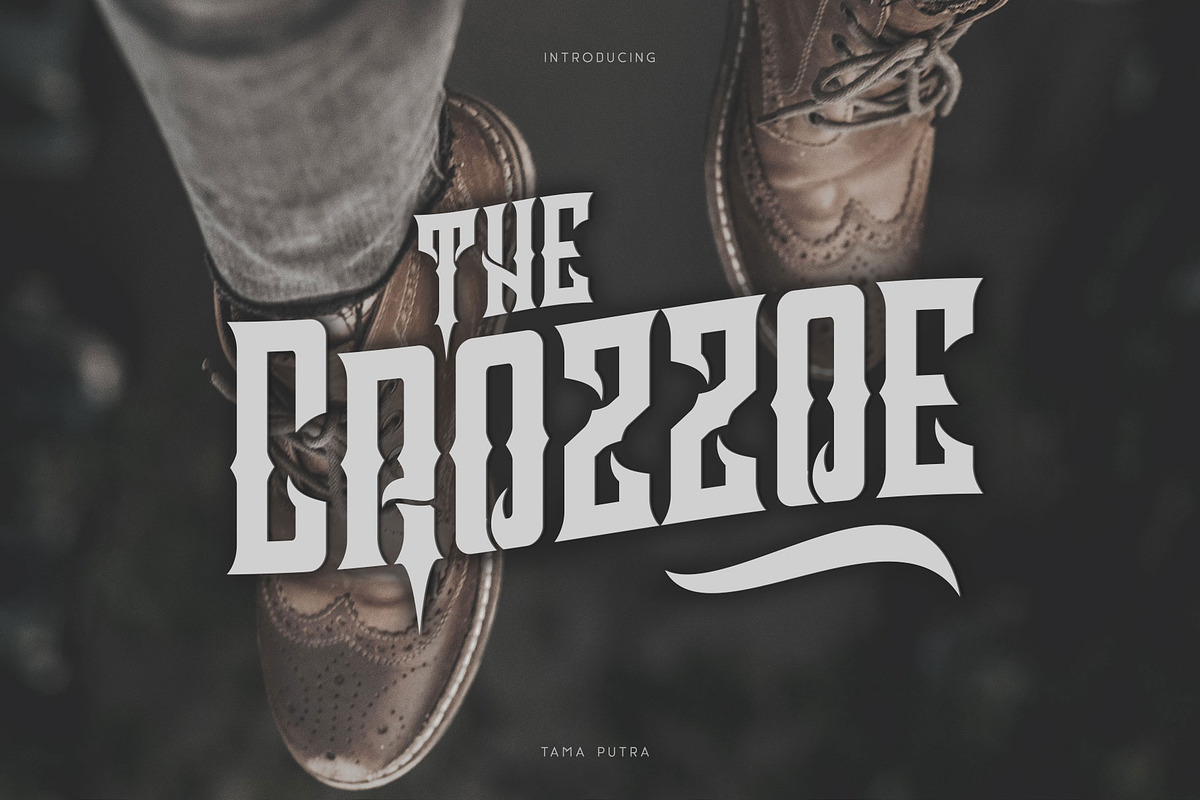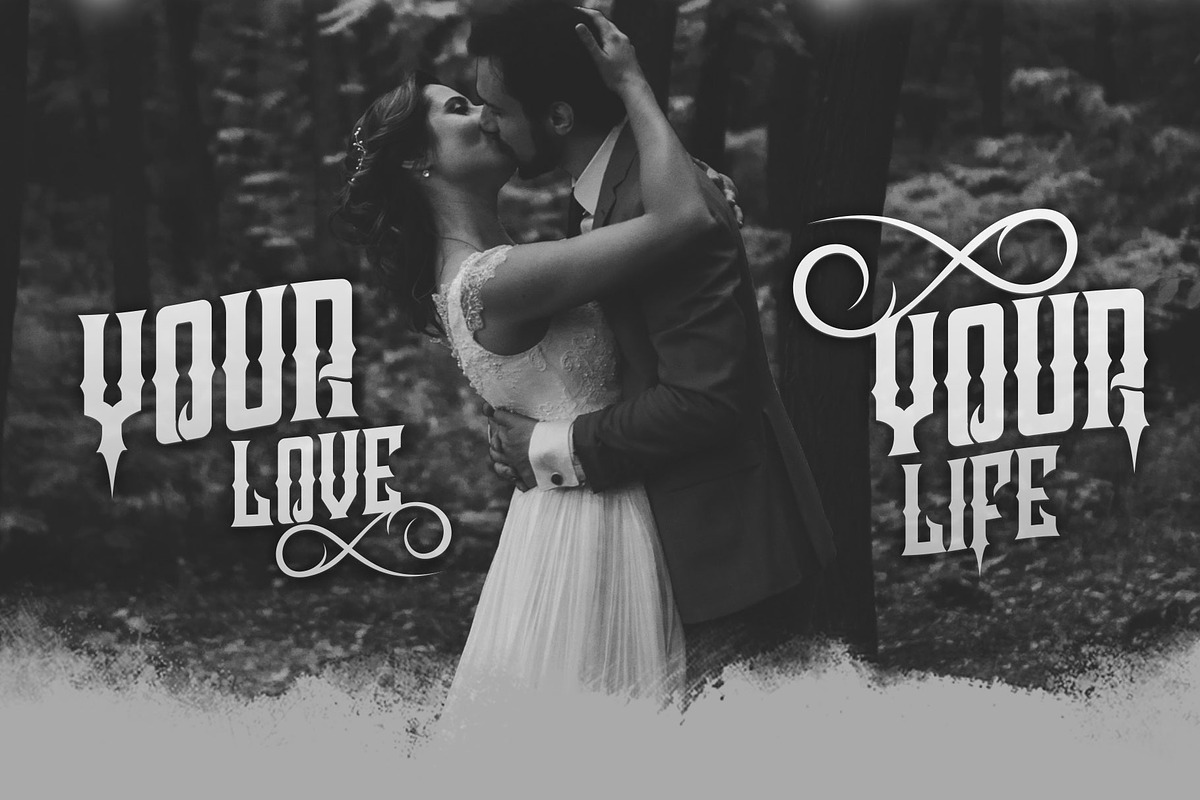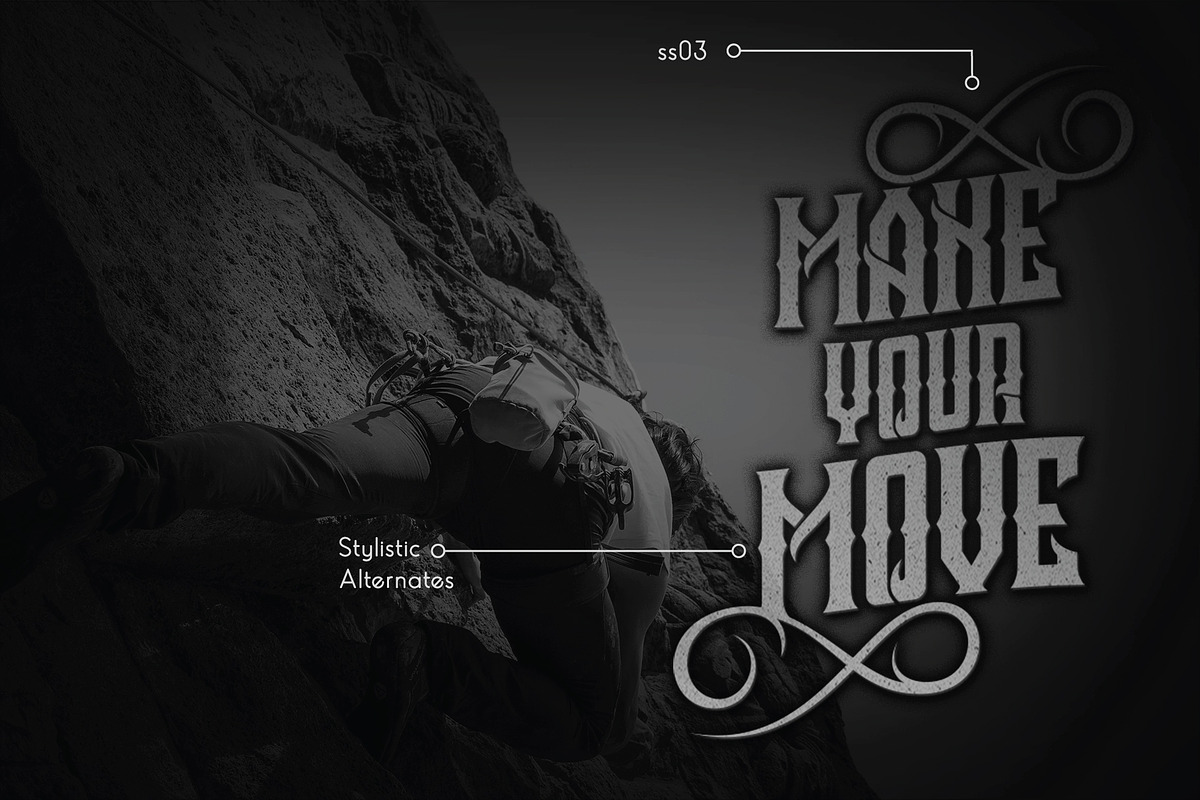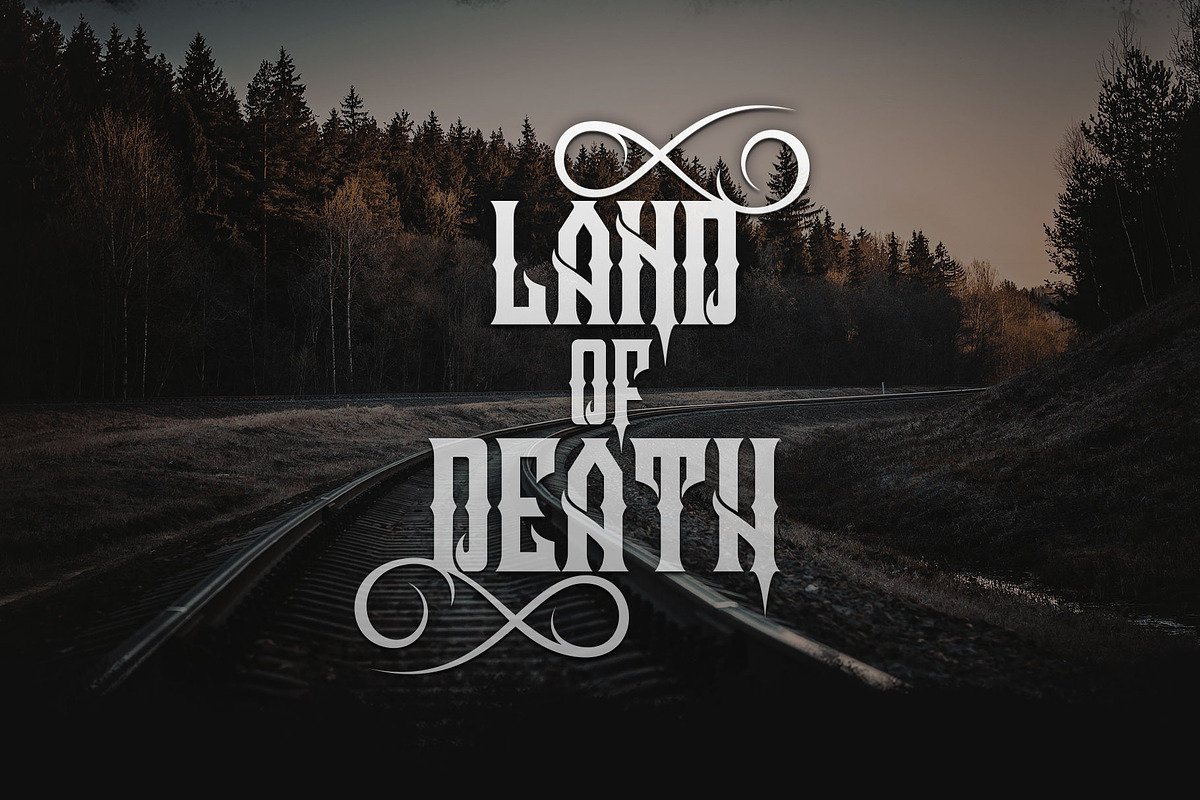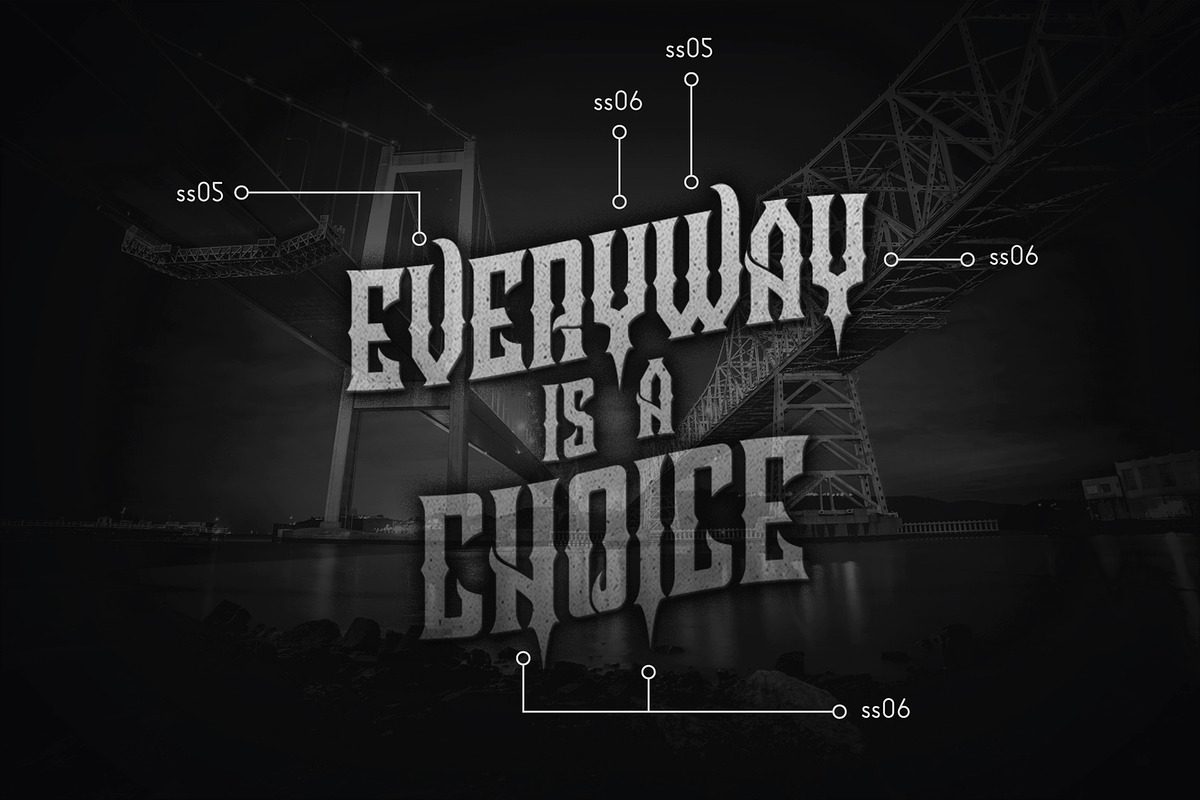
Crozzoe Decorative Typeface
Crozzoe Typeface
Crozzoe is a decorative blackletter typeface inspired by victorian style.
It includes a full set of uppercase and lowercase letters as well as multi-lingual and currency support, numerals, punctuation, alternates, ligatures and some extra glyphs.
- Character Set A-Z (Uppercase & Lowercase)
- Titling
- ss01, ss02, ss03, ss04, ss05, ss06, ss07
- Discreationary Ligatures
This typeface can be put to many uses:
- Poster
- Banner Design
- T-shirt
- Another end products
Crozzoe typeface is suitable font for creating beautiful things and many creative work.